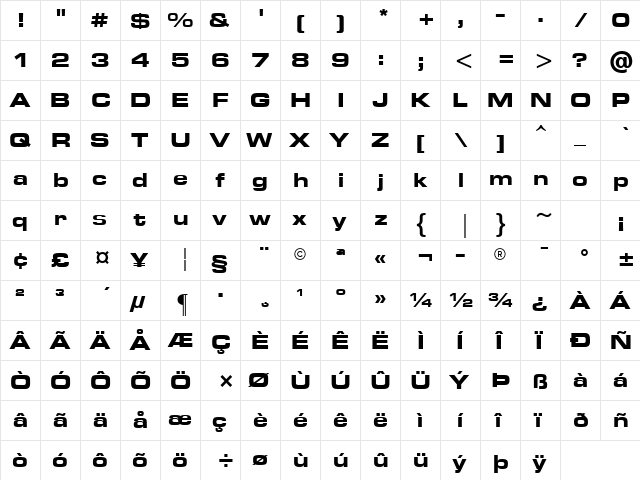
Microstyle Bold Extended ATT Regular
Design Context for Microstyle Bold Extended ATT Typeface
Microstyle Bold Extended ATT offers clean, dependable letterforms without strong stylistic allegiance, making it a practical choice for designers who need flexibility. Its bold stroke weight gives it real presence on the page.